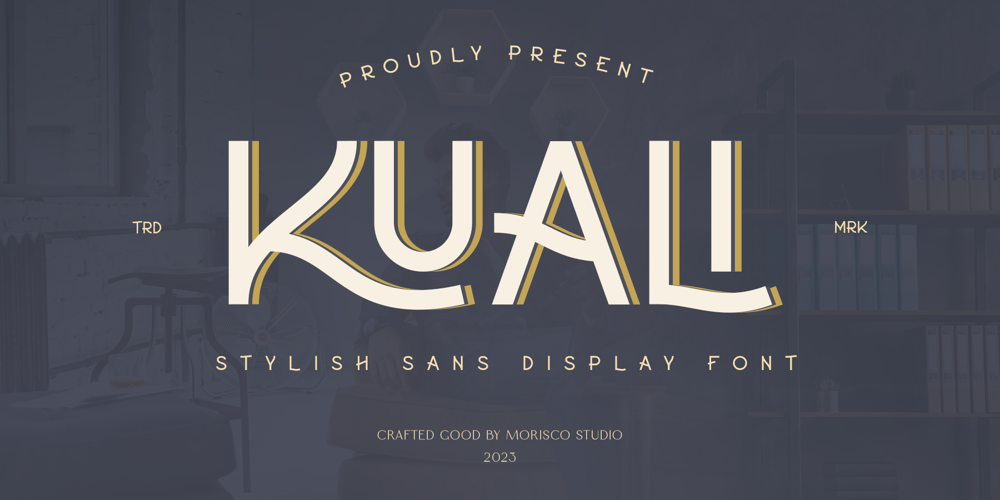
Kuali
Kuali font
Kuali Font Family was designed by Fathur Rahman and published by Morisco Studio. Kuali contains 1 styles and family package options. Kuali is a Stylish Sans Display Font with a unique character designed by Morisco Studio. This typeface is well-suited for headlines and any project, like branding, print templates, logos, and more.Features: Uppercase & Lowercase Symbols & Punctuation Ligature Alternate Files you get:Kuali RegularThis Font is set for Commercial LicenseI really hope you enjoy using Kuali. Please don’t hesitate to drop me a message if you have any questions. Thank You and Happy DesigningShow Less